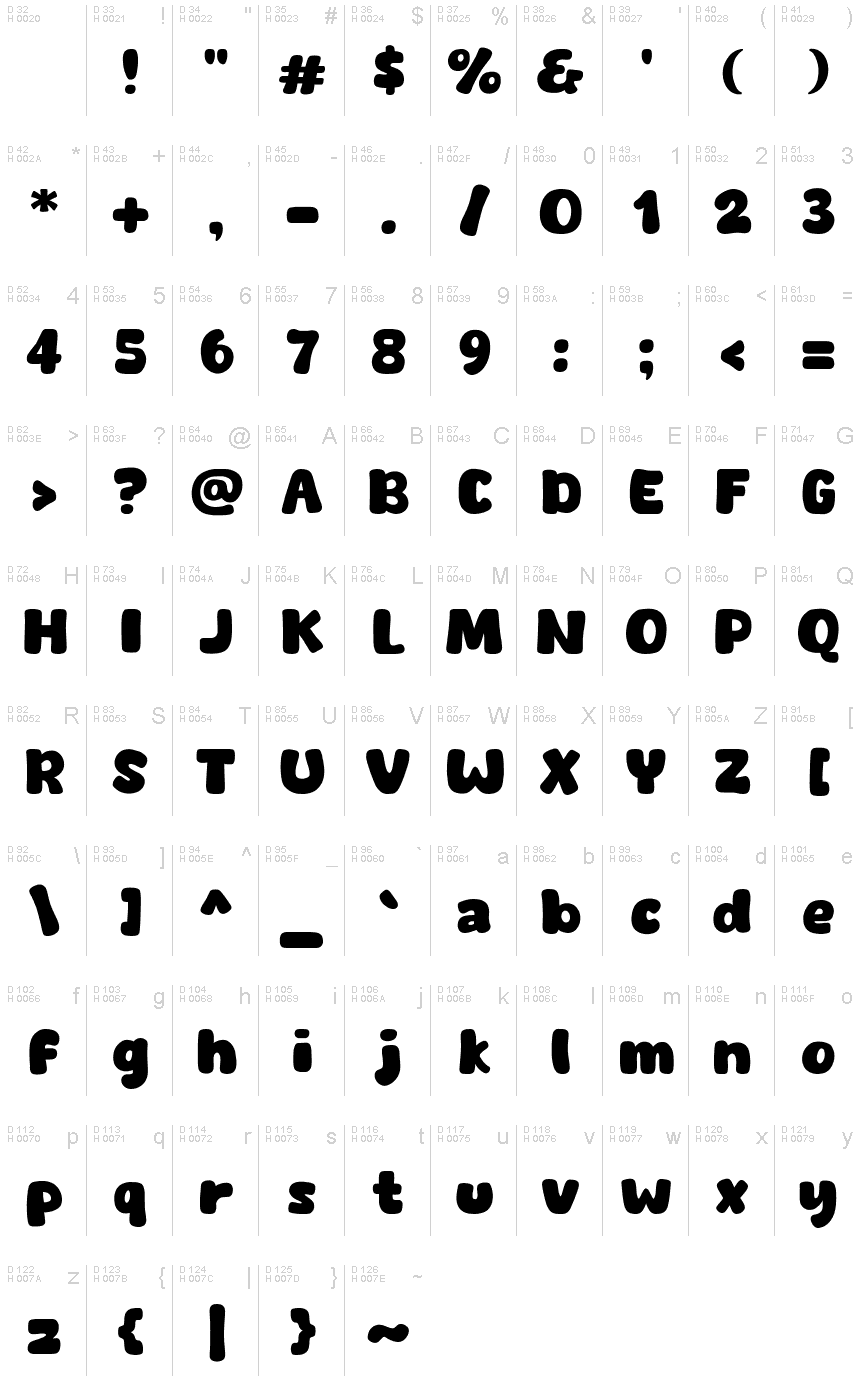
Bip Hope
Bip Hope, a vibrant display font by Khurasan, adds a playful touch to any project.
With its extra-bold weight and semi-expanded width, this cartoon-style typeface is perfect for children's books, animated videos, and game interfaces. Its lively curves and exaggerated letterforms make it an excellent choice for creating eye-catching logos or attention-grabbing headlines. Whether you're designing a colorful website or crafting a cheerful poster, Bip Hope will infuse your creations with youthful energy and whimsical charm.